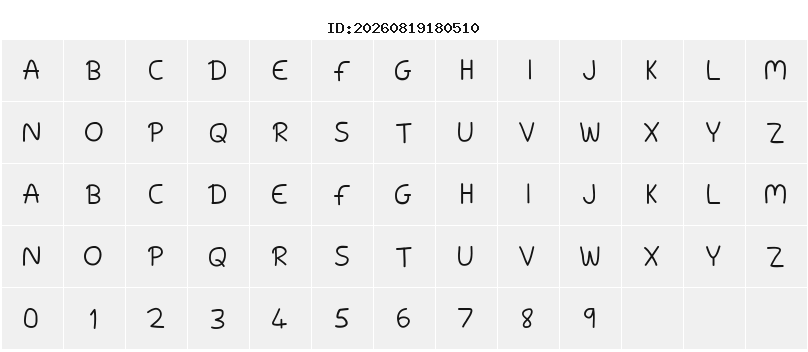
Shoulda Known Better! Preview
• Font Name: Shoulda Known Better!
• Full Font Name: Shoulda Known Better!
About Shoulda Known Better!.ttf
Shoulda Known Better!.ttf is a modern, elegant sans-serif font designed for ultimate readability and visual harmony. Perfect for branding, headlines, web design, and print materials.